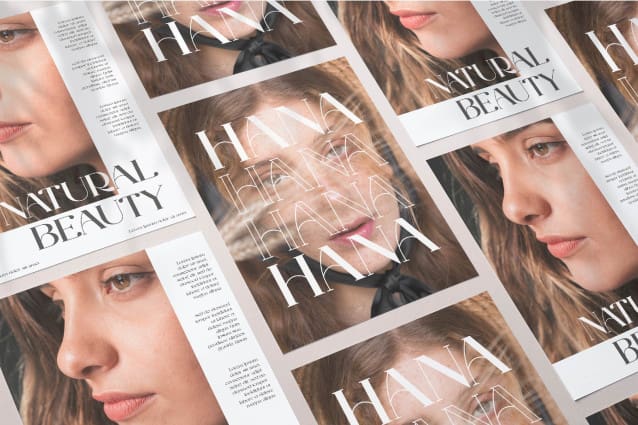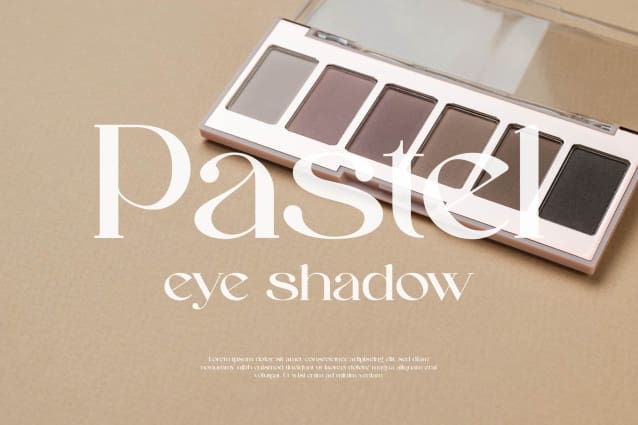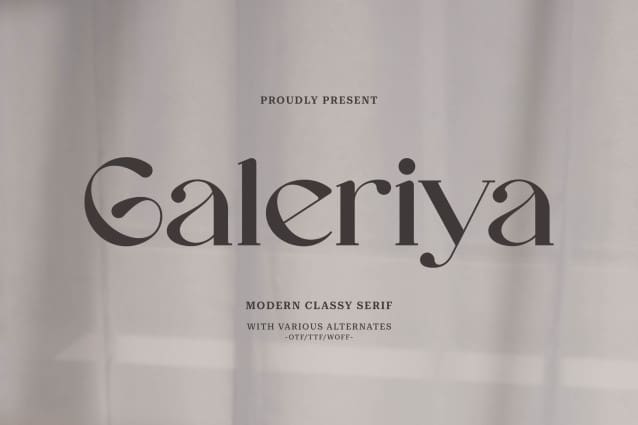
Galeriya Font
Galeriya Font – Modern Serif, from Gracetypestudio, suitable for any projects such as: logos, branding projects, homeware designs, product packaging, mugs, quotes, posters, shopping bags, t-shirts, book covers, name card, invitation cards, greeting cards, label, photography, watermark, special events, and all your other lovely projects that need a modern serif taste.